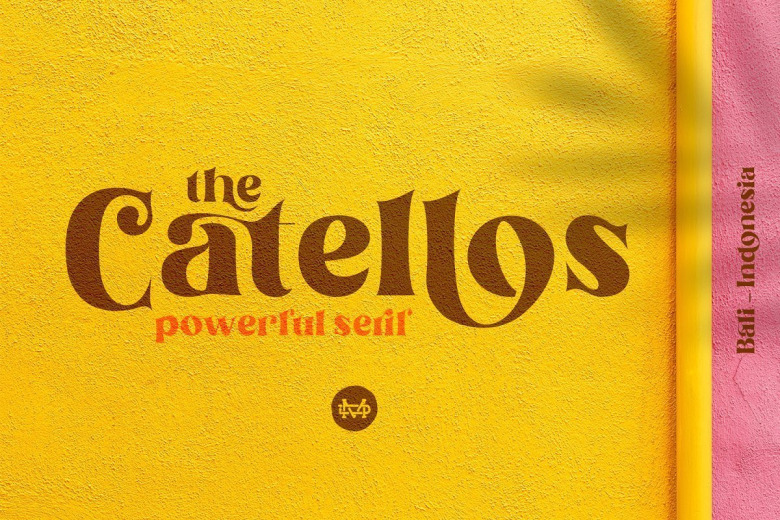
Catellos Powerful Serif Font
Introduce Catellos Powerful Serif Font is a serif Family. Comes with two variant medium and Bold with much alternate and ligature. Suitable to create any branding, product packaging, invitation, quotes, t-shirt, label, poster, logo etc.